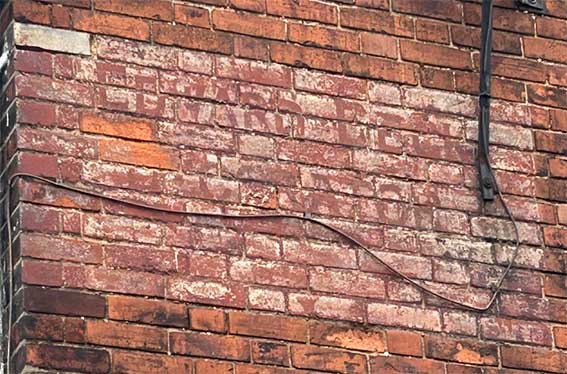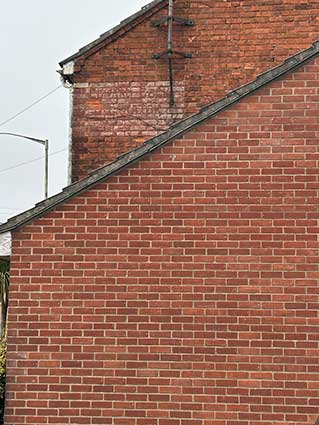
'EDWARD DECK
DECORATOR'
The lettering on a white rectangular background, appears to be painted in red – unless
its faded to a brick-red from the original black, perhaps. At first we
thought it was 'Edward Beck', but 'Edward Deck' is in large and small
caps, so 'Decorator' is probably similar,
although the first part of the word is degraded with brickwork showing
through. Luckily the metal support for the television aerial does not
obscure anything.
Some research in the Kelly's
directories showed not only that we had the surname wrong, but also
that he wasn't in business for long. The first listing for him at 861
Woodbridge Road – and as a 'decorator' – was in 1935. The same entry
was in 1939, but from 1941 to 1952, he appears with his name only,
suggesting that he may not have been in business after 1940.